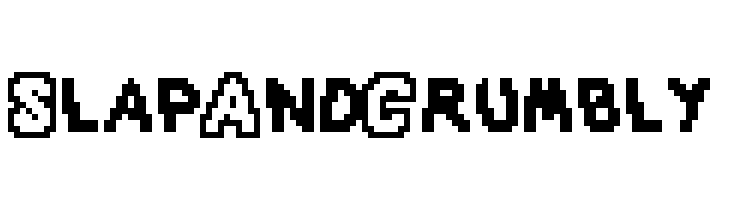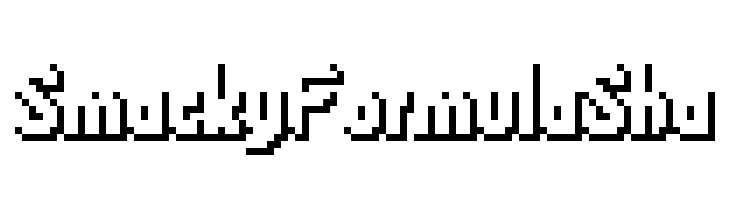
A pixelated, dot-matrix style font with a retro digital aesthetic.
A pixelated, retro-style font with a blocky, digital appearance.
A bold, pixelated font with a retro digital aesthetic.
A bold, pixelated font with a retro, digital aesthetic.
A pixelated, retro-style font with a digital, fragmented appearance.
A pixelated, retro-style font with a blocky, 8-bit aesthetic.
A pixelated, retro-style font with a blocky, geometric design.
A bold, pixelated font with a retro digital aesthetic.
A bold, pixelated font with a retro video game aesthetic.
A bold, pixelated outline font with a retro digital style.